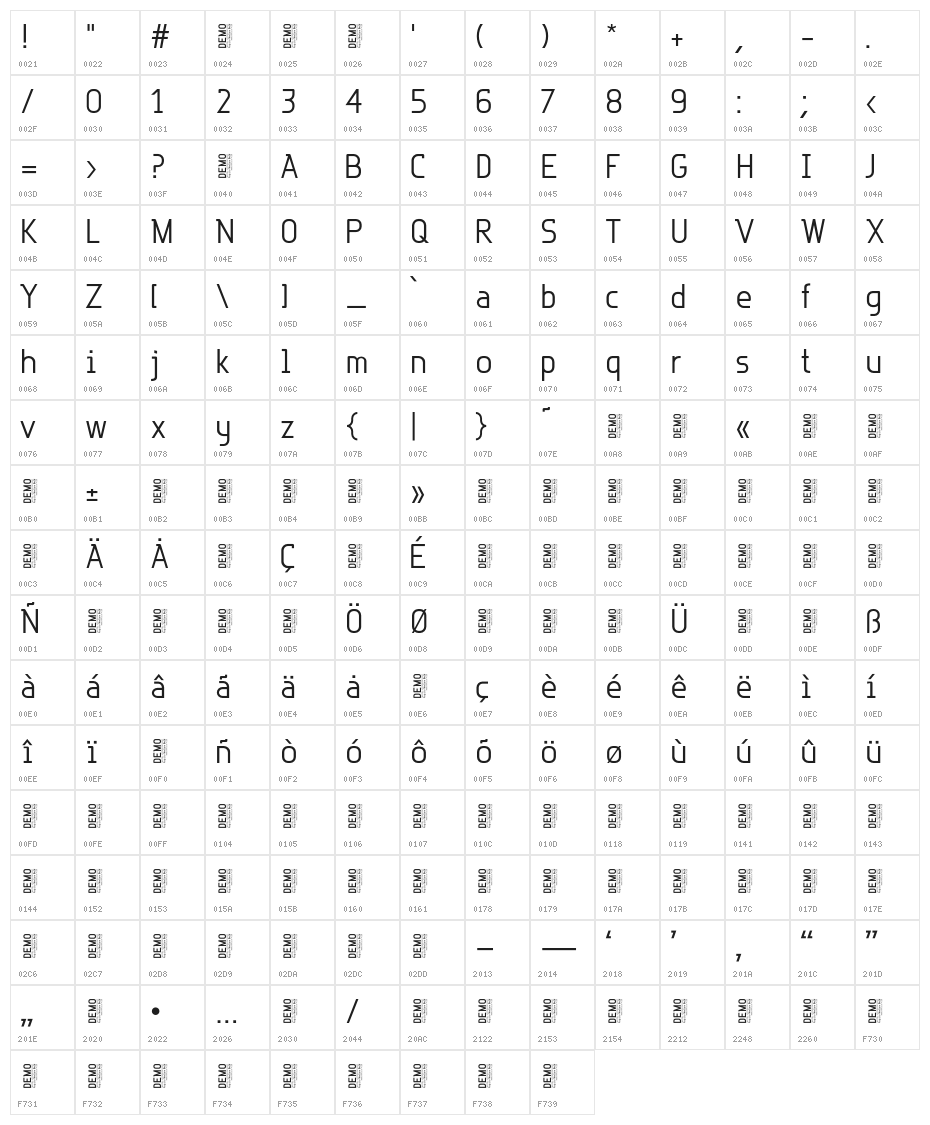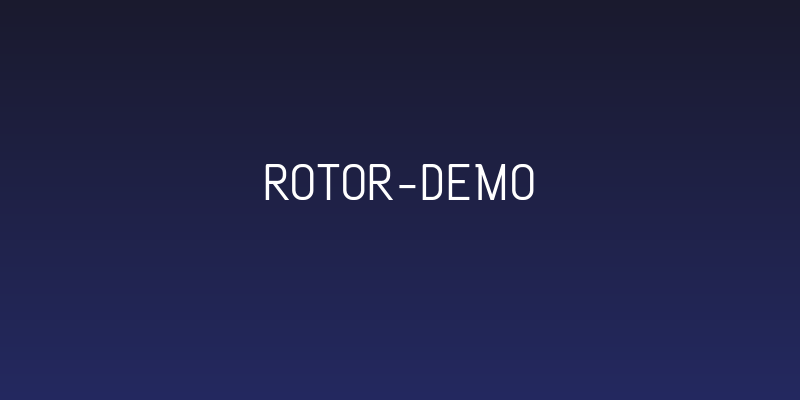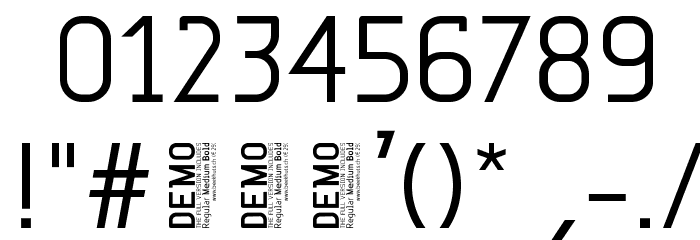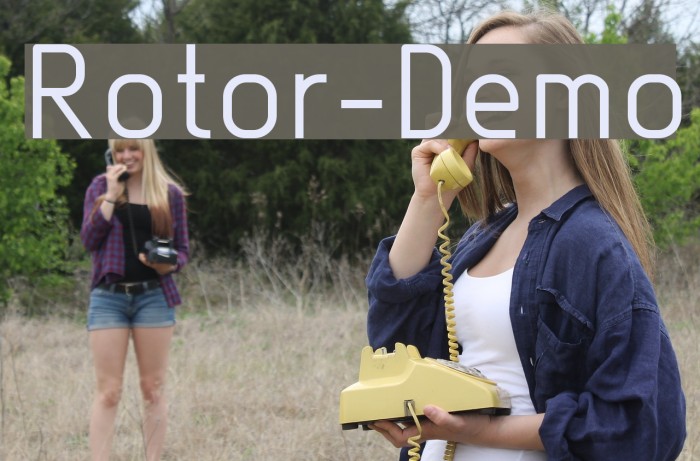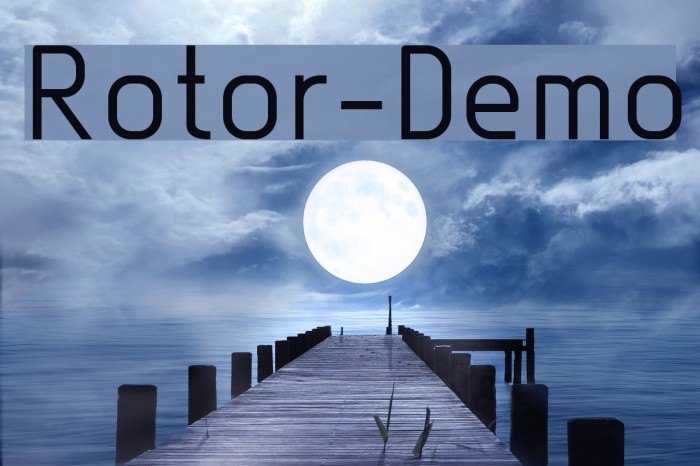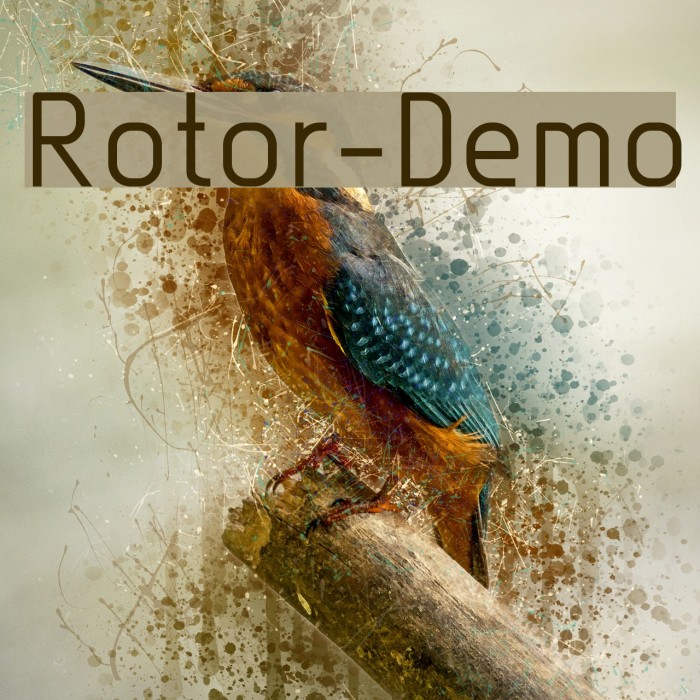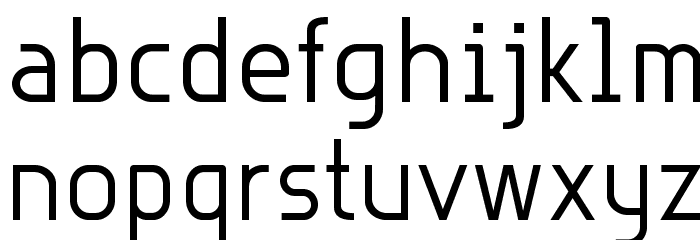
Rotor-Demo Font
Rotor-Demo Description
This font features a clean and modern sans-serif design with a geometric structure. The characters are uniform in width, providing a balanced and harmonious appearance. The uppercase letters are bold and assertive, while the lowercase letters maintain a consistent flow, enhancing readability. The numerals are clear and distinct, making them suitable for various applications. Special characters are included, maintaining the font's cohesive style. The overall look is sleek and professional, ideal for contemporary design projects.
| Proposed Projects | Ideal for branding, digital interfaces, advertising, and editorial design. |